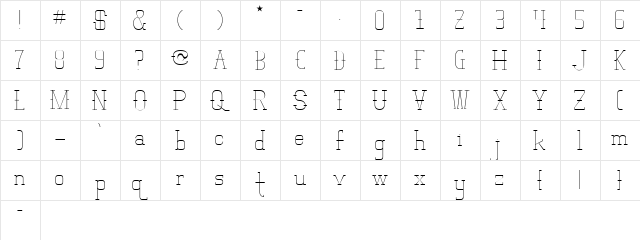
Vloderstone Lite Beta Regular
Design Context for Vloderstone Lite Beta Typeface
Vloderstone Lite Beta is a composed and adaptable typeface that performs quietly and consistently across a wide range of design contexts.